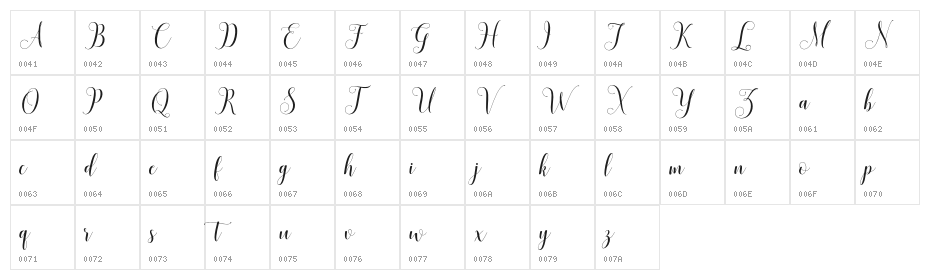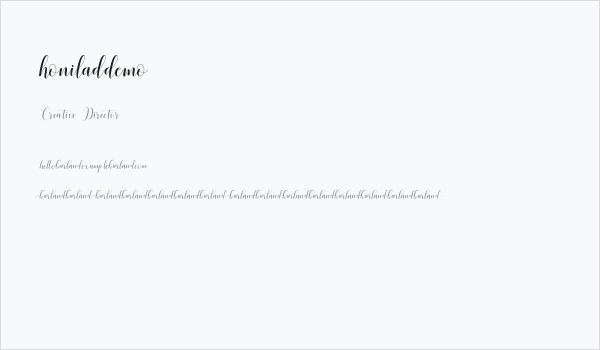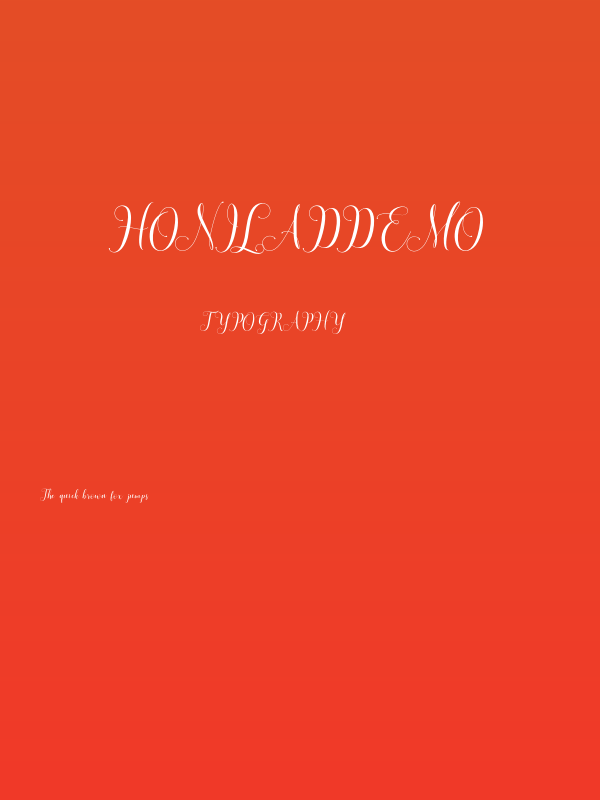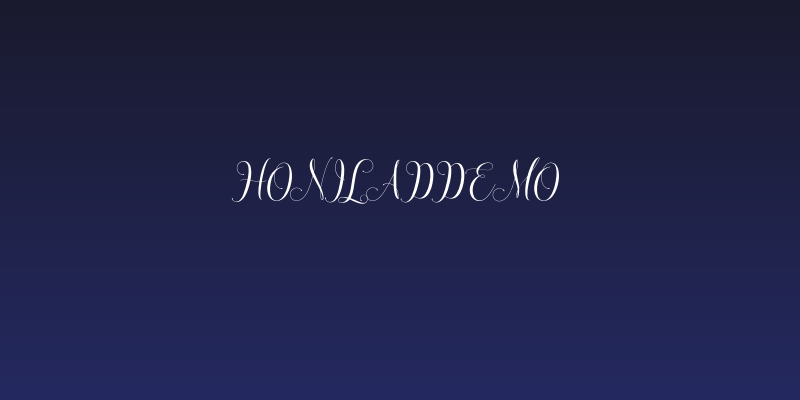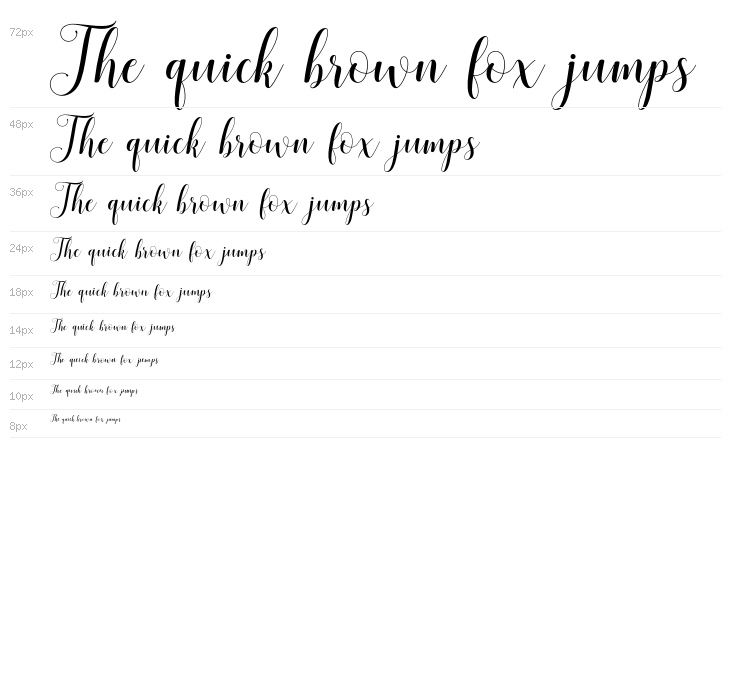
honiladdemo Font
honiladdemo Description
This elegant script font features graceful, flowing lines and intricate swashes, giving it a sophisticated and refined appearance. The uppercase letters are adorned with elaborate flourishes, while the lowercase letters maintain a more understated yet still stylish form. The font's design is reminiscent of classic calligraphy, with a modern twist that adds a touch of flair. Its delicate curves and loops create a sense of movement and fluidity, making it ideal for projects that require a touch of elegance and class. The font is versatile enough to be used for both formal and creative applications, offering a unique blend of tradition and contemporary style.
| Overall Style | Elegant, Classic |
| Proposed Projects | Wedding invitations, luxury branding, elegant packaging, greeting cards, and high-end event materials. |